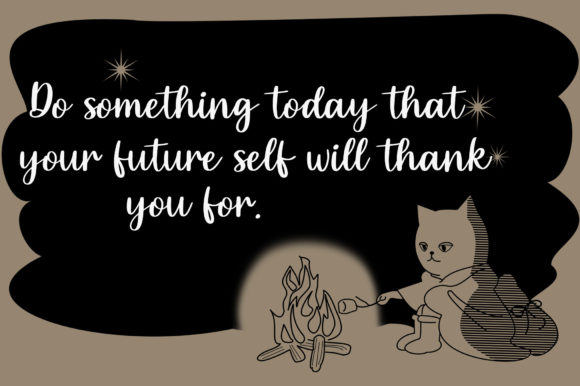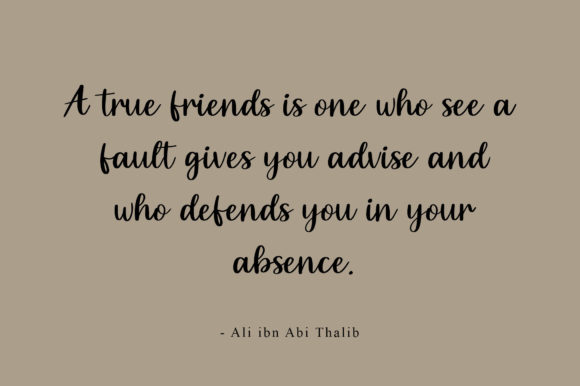
Teacher Day Font
db-ku.com - Script & Handwritten -- Teacher Day is a simple, well balanced and beautiful script font. Its sweet and full of life style makes this font a wonderful choice for brightening up your designs.